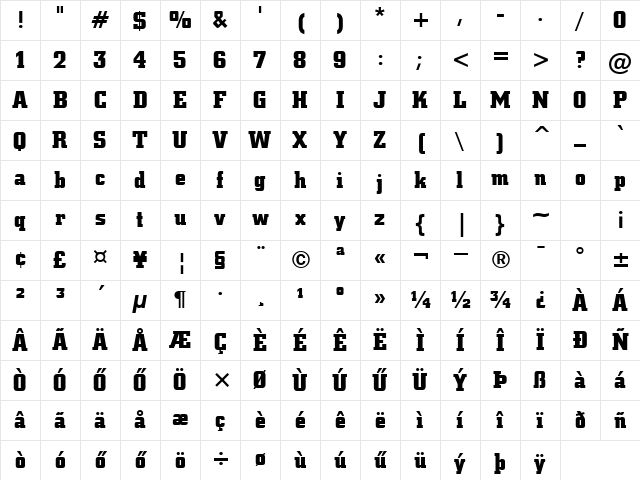
Hu_Slabq features prominent, blocky serifs that give it a confident, grounded presence - equally at home in editorial settings and bold branding work.
Pro Tip: Use Hu_Slabq for headlines and subheadings where its slab serifs can make an impression. It also holds up well in mid-size body copy thanks to its sturdy construction.